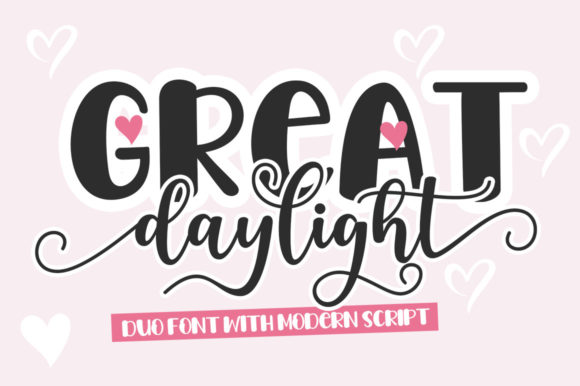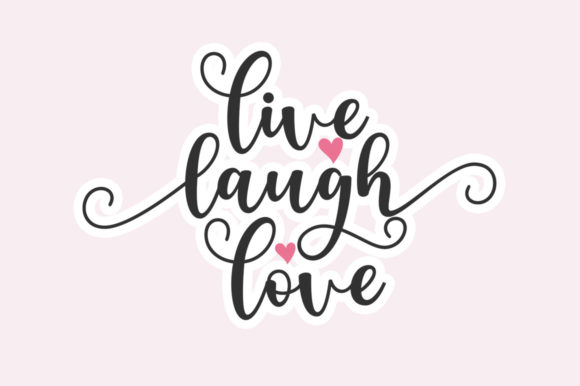
About Great Daylight Duo Font
Great Daylight Duo is a lovely duo font (sans serif and script). This font is PUA encoded which means you can access all of the glyphs and swashes with ease!